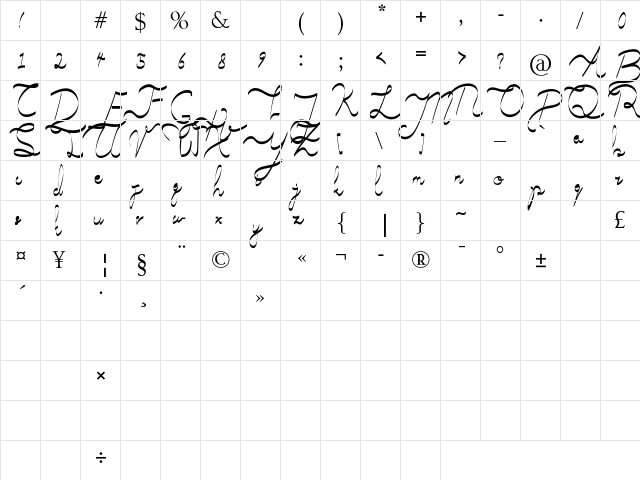
Wahyucakra Regular
Design Context for Wahyucakra Typeface
Wahyucakra is a composed and adaptable typeface that performs quietly and consistently across a wide range of design contexts.